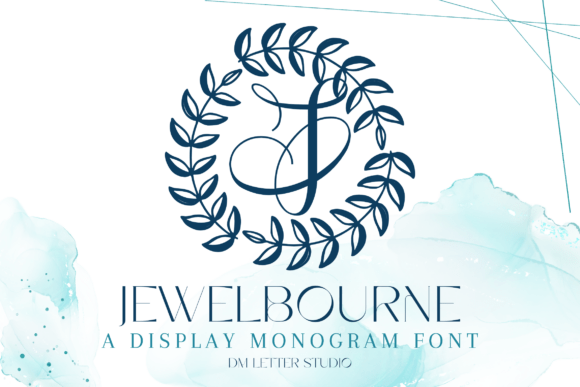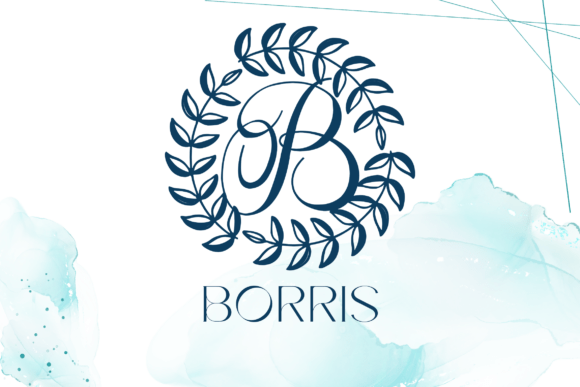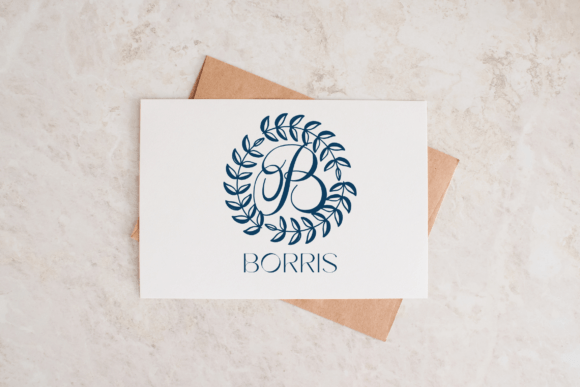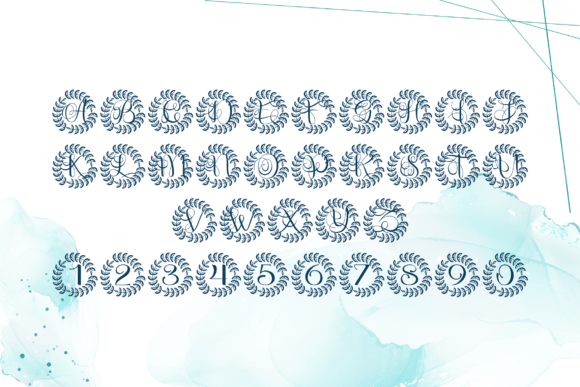
The Perfect Monogram Font for Your Next Design Project
Have you ever been tasked with creating a custom wedding invitation or logo for a client, only to find yourself stuck on the perfect font? We’ve all been there. But what if I told you there’s a solution that can elevate your designs and make your life easier? Enter Jewelbourne Monogram Font, the ultimate tool for turning simple initials into stunning emblems.
This beautiful font is designed to work seamlessly with refined serifs and humanist sans fonts, making it easy to create elegant layouts without extra effort. Whether you’re creating a wedding suite, boutique logo, or premium packaging, Jewelbourne Monogram Font is the perfect addition to your design toolkit. Its smooth strokes, generous counters, and symmetrical proportions make it a joy to work with, and its scalability ensures it looks great on everything from jewelry cards to entry displays.
Jewelbourne Monogram Font Key Features
- Font Type: Script Monogram Font, ideal for creating elegant and sophisticated designs.
- Unique Characteristics: The Jewelbourne Monogram Font features intricate details, elegant flourishes, and a touch of luxury, making it perfect for high-end designs and branding.
Jewelbourne Monogram Font Review
I recently had the chance to work with Jewelbourne Monogram Font, and I must say it’s a mixed bag. ✨ The font’s unique blend of elegance and playfulness is perfect for creating eye-catching designs, especially for wedding invitations, luxury brands, or high-end events. The intricate details and ornaments add a touch of sophistication that’s hard to find in other fonts.
- ✨ Beautifully crafted ornaments and details that add a luxurious touch.
- ✨ Perfect for creating unique and memorable designs for special occasions.
- ✨ Works well with both modern and vintage design elements.
However, there are some limitations that might make it less appealing to some designers. ⚠️ The font is quite complex, which can make it challenging to use, especially for beginners. The size and spacing of the ornaments can also be tricky to adjust, which might require some trial and error.
- ⚠️ Complex design can be overwhelming for some users.
- ⚠️ Difficulty in adjusting size and spacing of ornaments.
- ⚠️ Might not be suitable for simple or minimalist designs.
Overall, I think Jewelbourne Monogram Font is a great choice for designers who want to create unique and luxurious designs. While it may have some limitations, the end result is well worth the effort. With a little practice and patience, you can create truly stunning designs that will leave a lasting impression.
Experiment with different font sizes, colors, and styles to create a unique look. Use the Jewelbourne Monogram Font in combination with other fonts to add depth and visual interest to your design.
The Jewelbourne Monogram Font is ideal for creating elegant and sophisticated designs, such as:
– Luxury branding and packaging
– High-end event materials